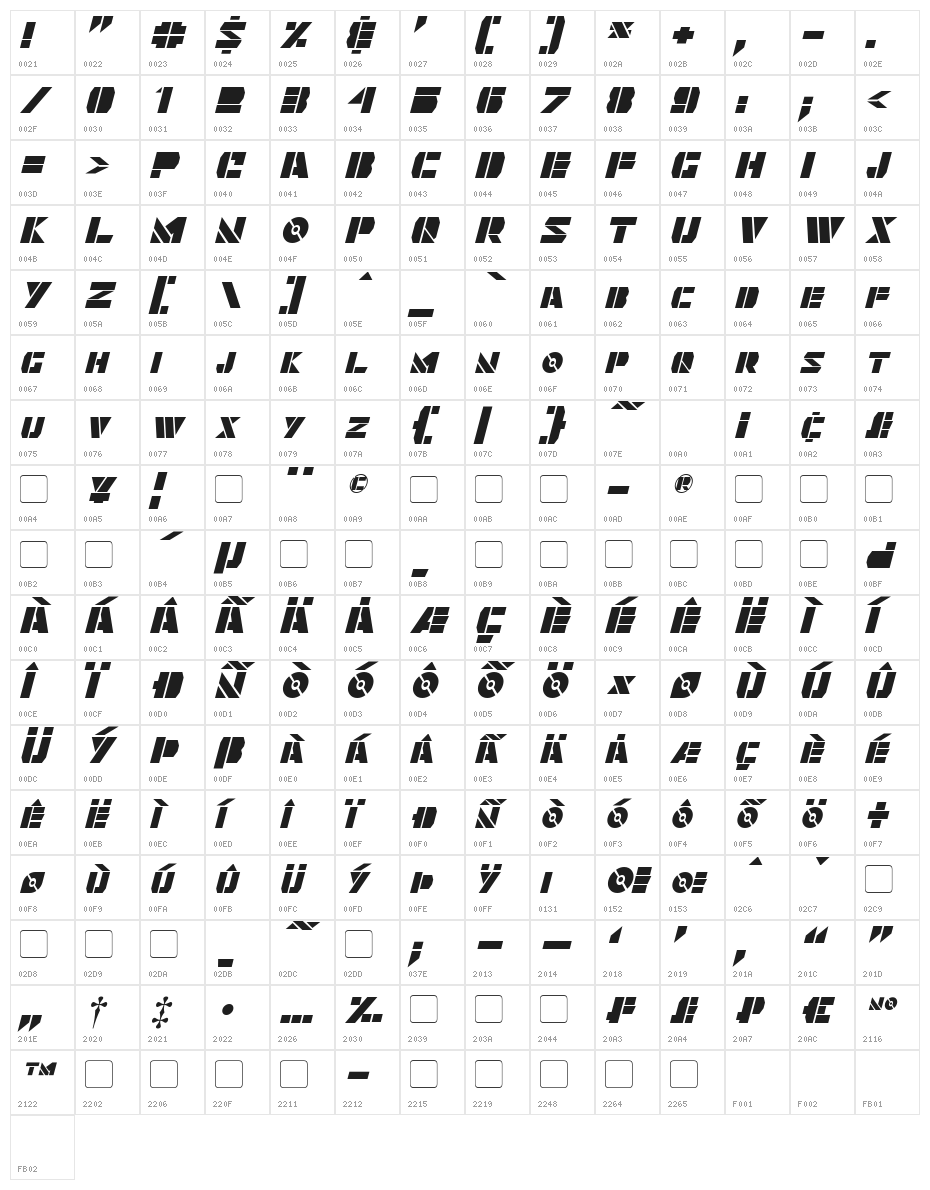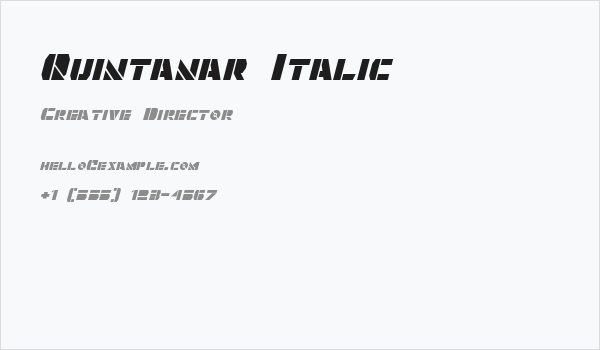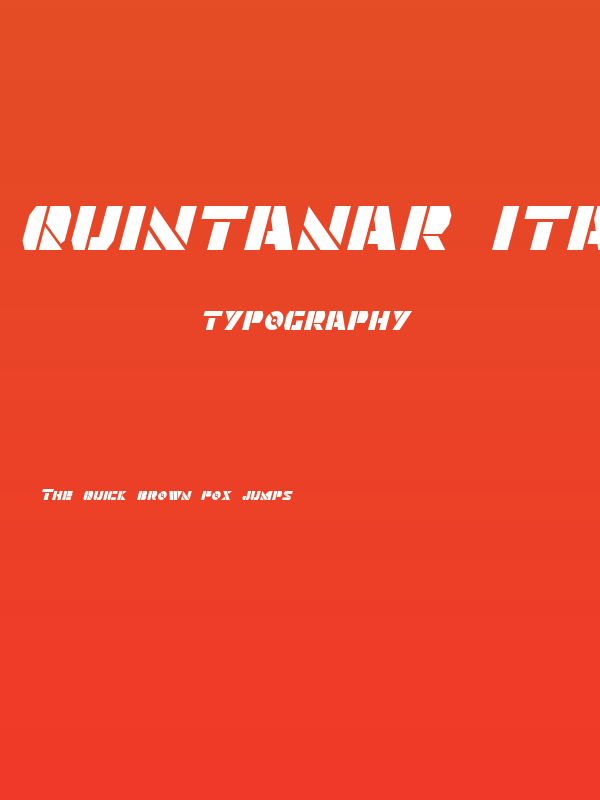
Quintanar Italic Font
Quintanar Italic Description
This font features a bold and angular design with a distinct geometric style. Each character is crafted with sharp edges and a slanted orientation, giving it a dynamic and modern appearance. The uppercase letters are particularly striking, with a strong presence that commands attention. The numbers and special characters maintain the same angular aesthetic, ensuring consistency across all elements. This font is ideal for projects that require a bold statement, such as branding, posters, or headlines. Its unique style makes it stand out, while the consistent slant adds a sense of movement and energy.
| Proposed Projects | Ideal for branding, posters, headlines, and any project needing a bold statement. |